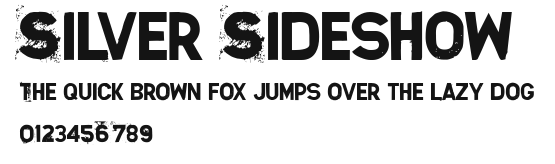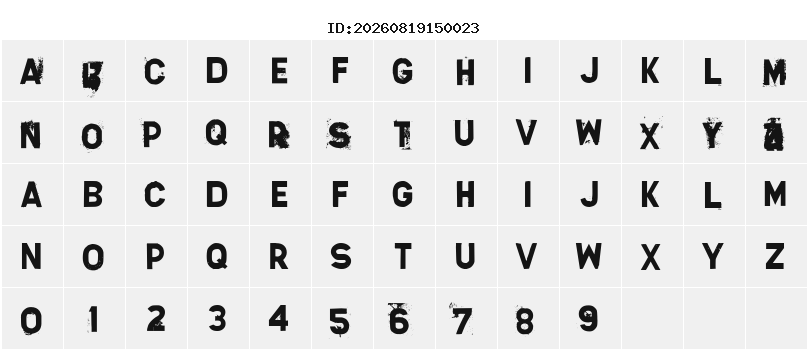
Silver Sideshow Preview
• Font Name: Silver Sideshow
• Full Font Name: Silver Sideshow
About Silver Sideshow.ttf
Silver Sideshow.ttf is a modern, elegant sans-serif font designed for ultimate readability and visual harmony. Perfect for branding, headlines, web design, and print materials.